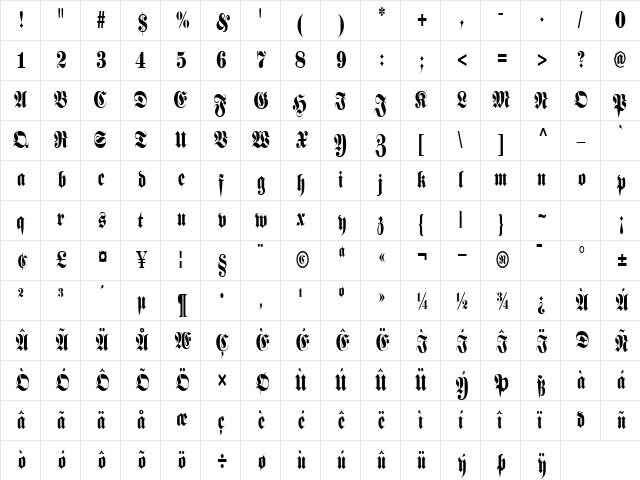
BarronCondensed Regular
Design Context for BarronCondensed Typeface
BarronCondensed is a composed and adaptable typeface that performs quietly and consistently across a wide range of design contexts. The condensed width makes it efficient for tight spaces without sacrificing legibility.